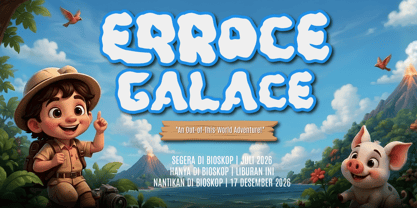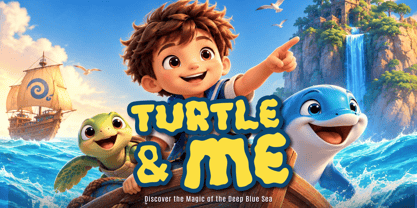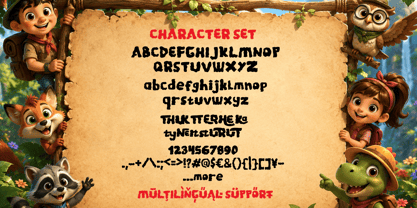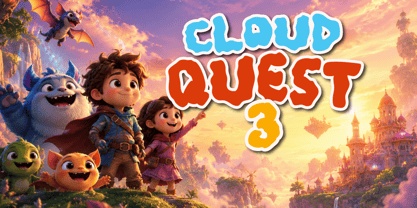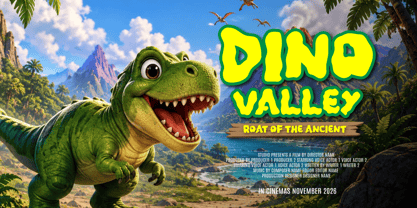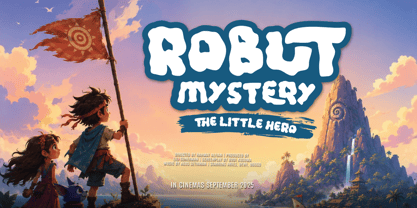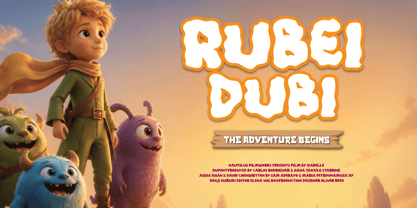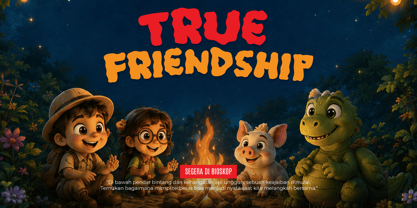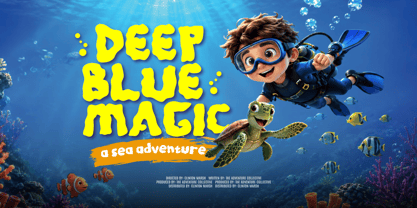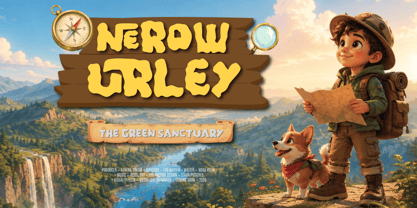
Thurket Ovriks – Movie Cartoon Font is a playful display font featuring organic, chunky, and expressive letterforms designed to create a cheerful, adventurous, and family-friendly atmosphere. Its unique and friendly character works beautifully for eye-catching titles in children's, adventure, and entertainment projects.
This font is ideal for children's adventure, travel documentaries, nature educational content, and big screen promotion. Use it for movie titles, animated film posters, children's books, adventure branding, educational media, YouTube thumbnails, promotional campaigns, merchandise, and studio graphics. Its fun and memorable appearance helps create a warm, imaginative, and energetic visual identity.
Thurket Ovriks is a strong choice for graphic designers, movie studios, children's content creators, illustrators, and creative agencies looking for a cartoon display font for bold headlines, posters, title treatments, and entertainment projects with a distinctive and approachable personality.
- Fonts include Multilingual: Support for 85 languages
Afrikaans, Albanian, Asu, Basque, Bemba, Bena, Breton, Catalan, Chiga, Cornish, Croatian, Czech, Danish, Dutch, Embu, English, Esperanto, Estonian, Filipino, Finnish, French, Friulian, Galician, Gusii, Hungarian, Indonesian, Irish, Italian, Kabuverdianu, Kalenjin, Kamba, Kikuyu, Kinyarwanda, Latvian, Lithuanian, Lower, Sorbian, Luo, Luxembourgish, Luyia, Machame, Makhuwa-Meetto, Makonde, Malagasy, Maltese, Manx, Meru, Morisyen, North, Ndebele, Norwegian Bokmål, Norwegian Nynorsk, Nyankole, Oromo, Polish, Portuguese, Quechua, Romanian, Romansh, Rombo, Rundi, Rwa, Samburu, Sango, Sangu, Scottish, Gaelic, Sena, Serbian, Shambala, Shona, Slovak, Slovenian, Soga, Somali, Spanish, Swahili, Swedish, Swiss German, Taita, Teso, Turkish, Upper Sorbian, Uzbek (Latin), Volapük, Vunjo, Walser, Zulu.